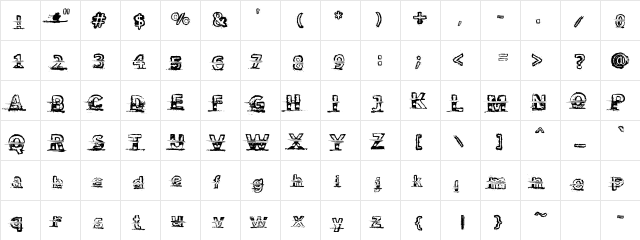
Snow Traces Regular
Design Context for Snow Traces Typeface
Snow Traces is a composed and adaptable typeface that performs quietly and consistently across a wide range of design contexts.